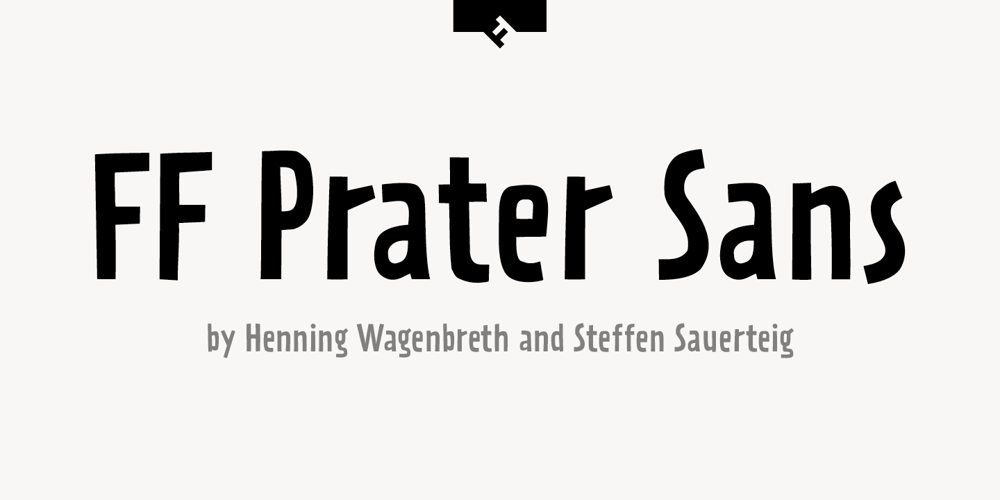
FF Prater Sans
FF Prater Sans Font Family was designed by Steffen Sauerteig, Henning Wagenbreth and published by FontFont. FF Prater Sans contains 2 styles and family package options. German type designers Henning Wagenbreth and Steffen Sauerteig created this display and sans FontFont in 2000. The family contains 2 weights: Regular and Bold and is ideally suited for advertising and packaging, festive occasions, film and tv, editorial and publishing as well as poster and billboards. FF Prater Sans provides advanced typographical support with features such as ligatures, alternate characters, and case-sensitive forms. It comes with tabular lining and proportional lining figures. This FontFont is a member of the FF Prater super family, which also includes FF Prater Block, FF Prater Script, and FF Prater Serif.